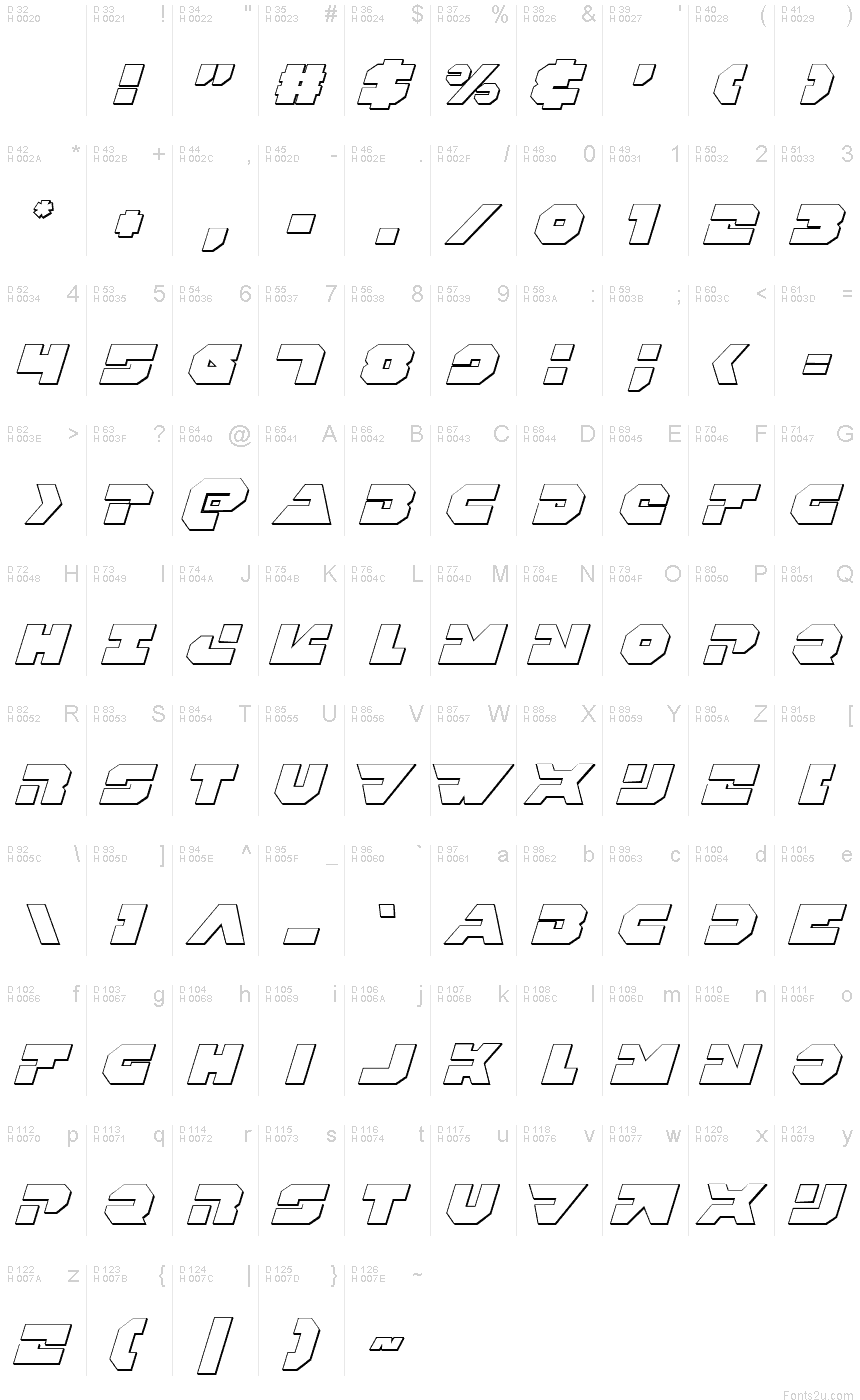
Trigger Man 3D Italic, created by Iconian Fonts in 2012, is a free futuristic outline display font with broad proportions, a hard forward slant, and sharply cut forms. Clipped corners repeat across the broad outlined letters.
The angular contours echo spacecraft panels, racing liveries, and hard-surface game art, making the font a convincing fit for science-fiction posters, motorsport merchandise, and arcade title screens. Technology product packaging and esports event branding tap into the same mix of speed, machinery, and oversized industrial lettering, especially for products aimed at gaming and automotive audiences.